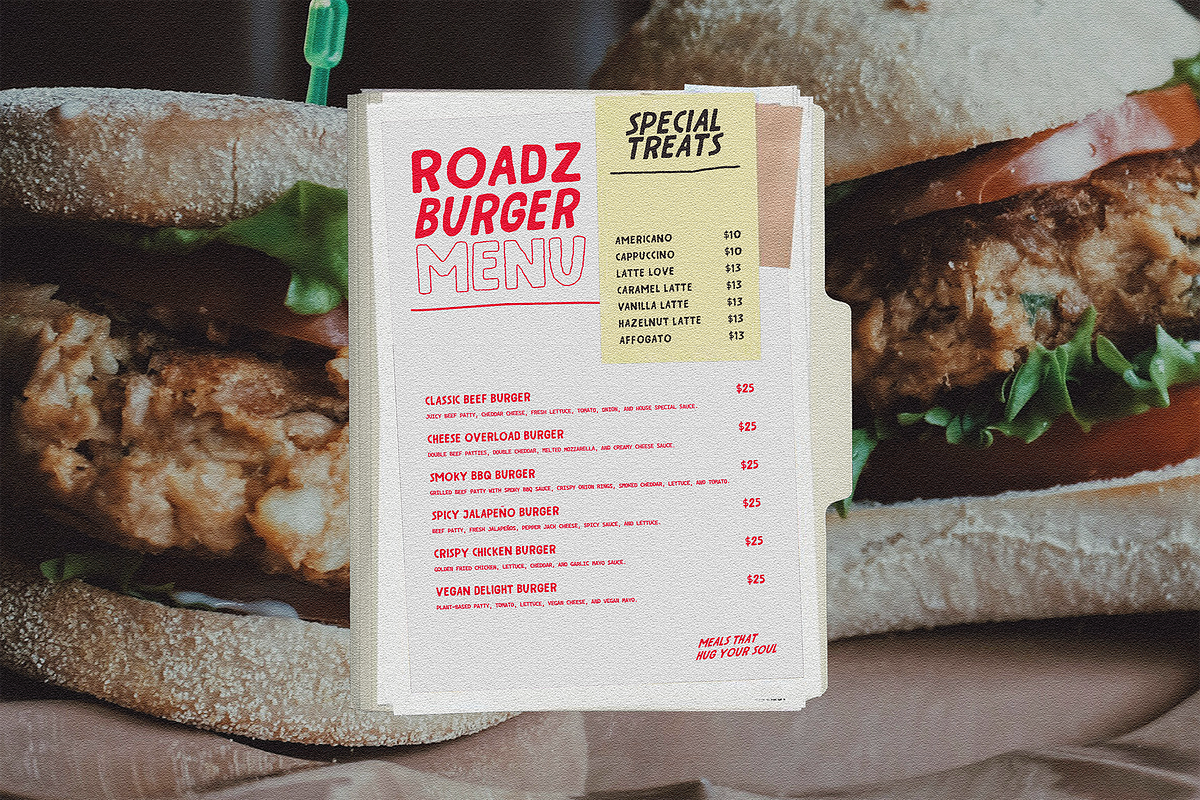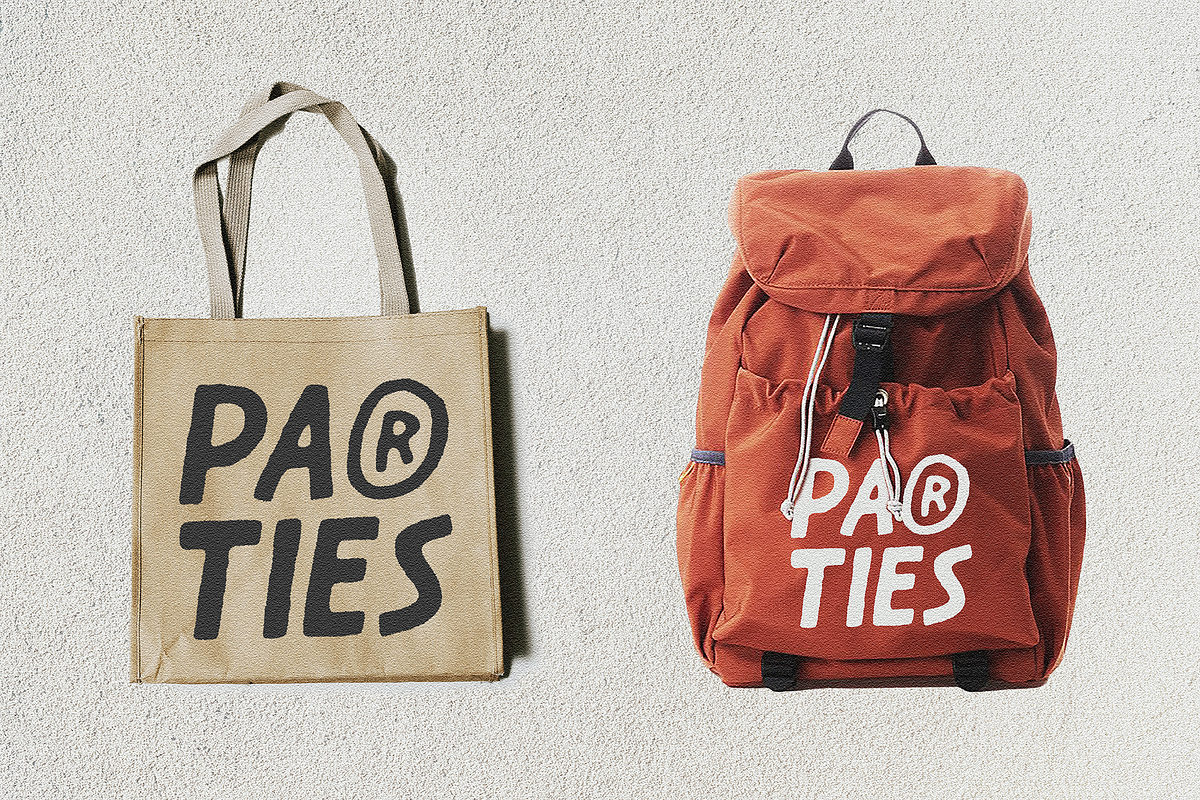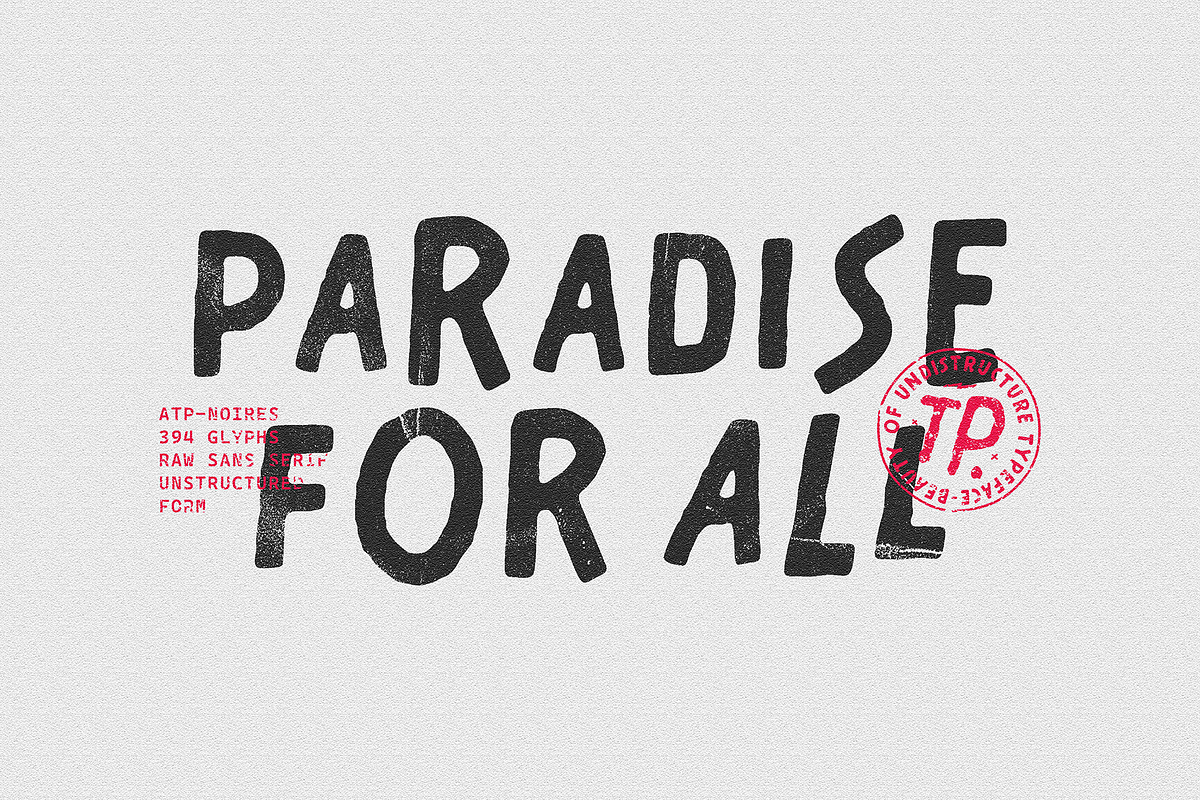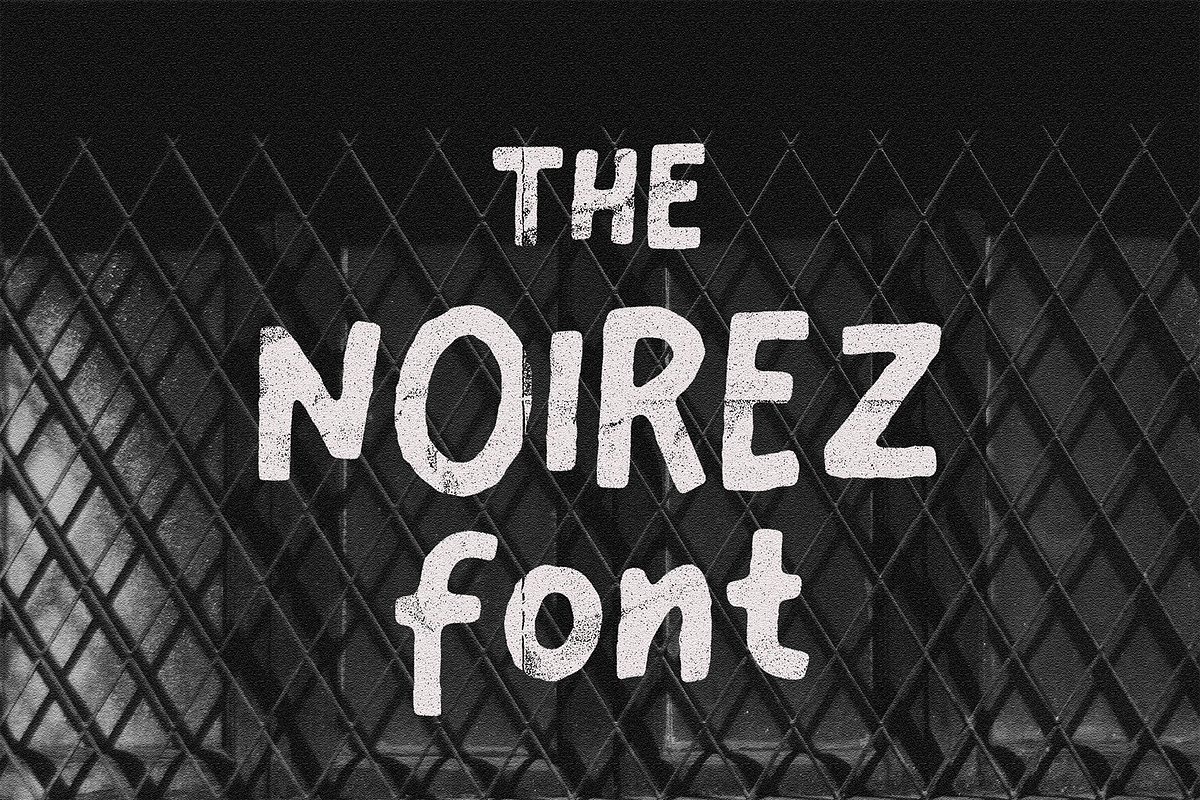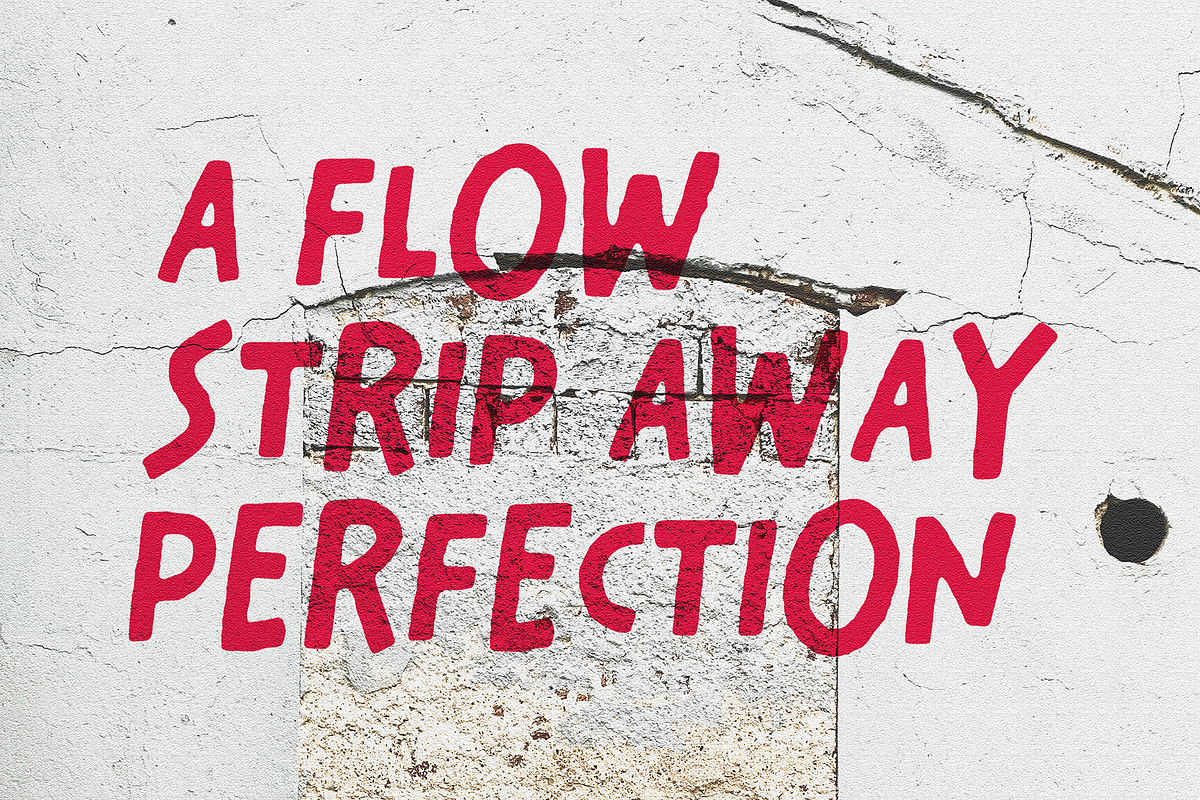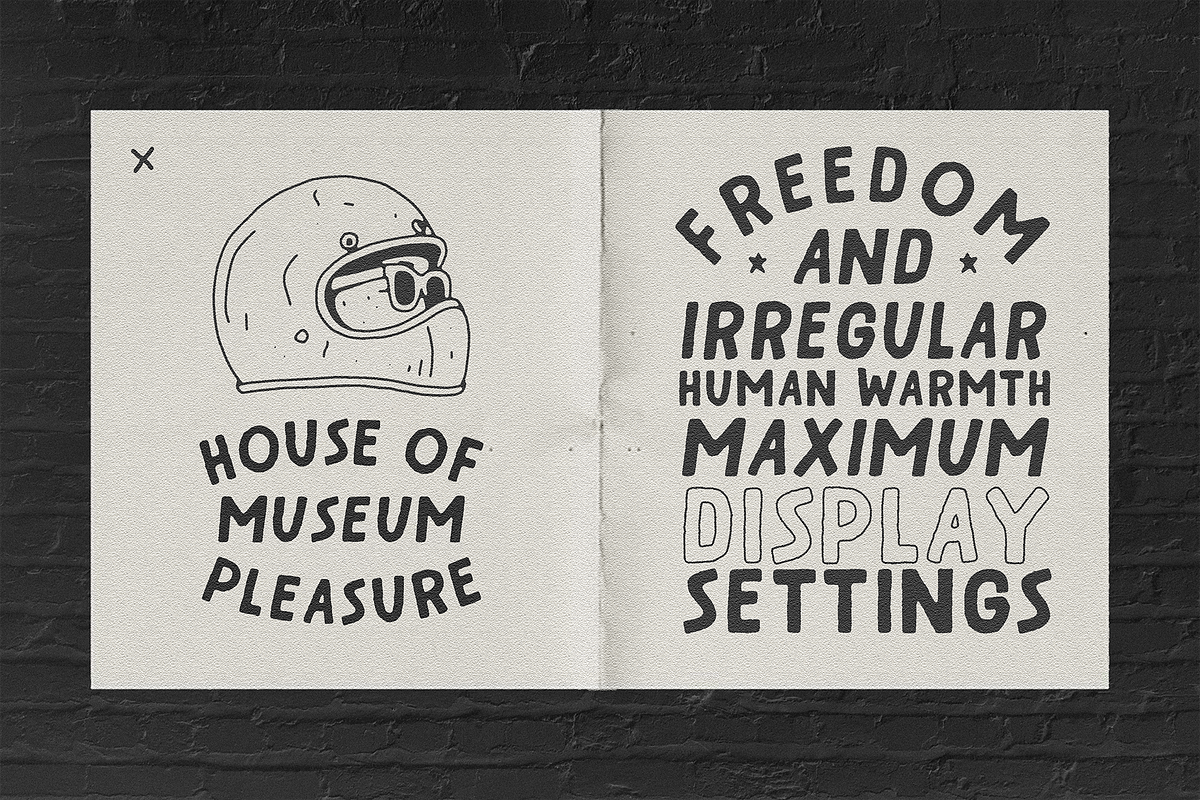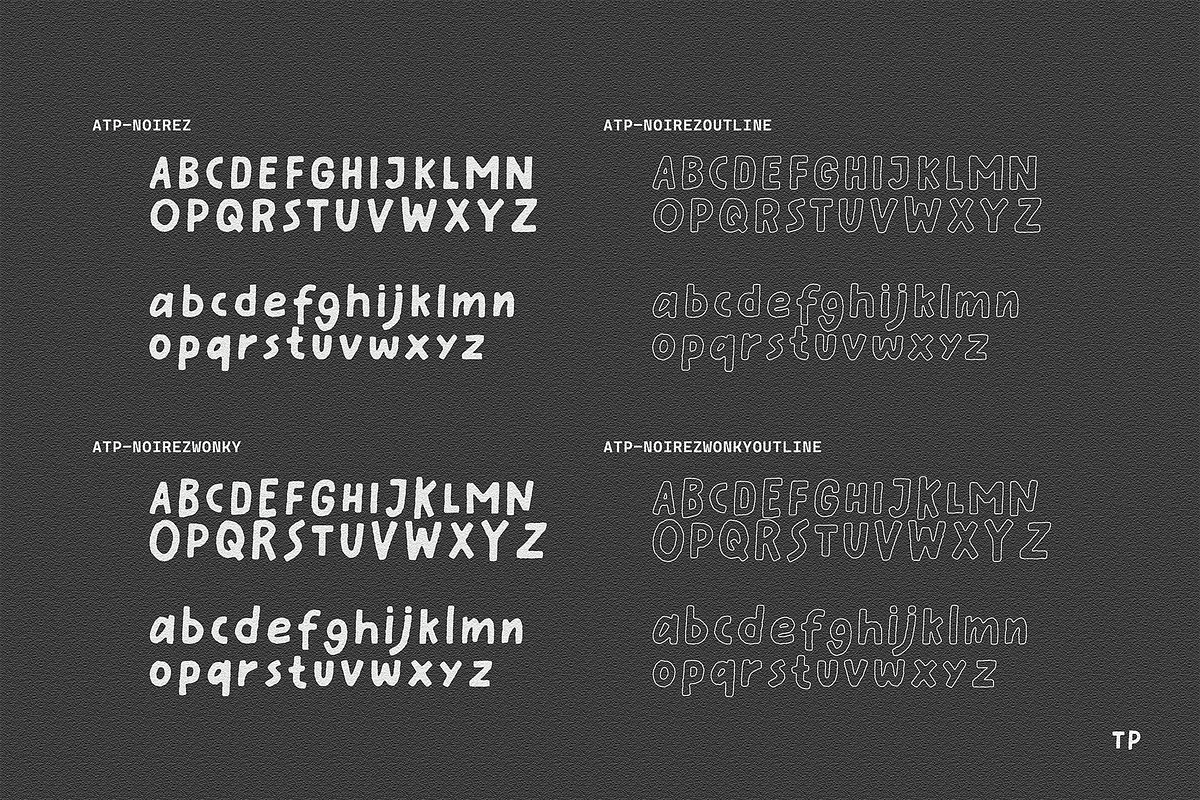
Noirez - Vintage Sans Serif Font
This bold sans serif font brings a laid-back but rebellious vibe. Its hand-drawn strokes feel rough around the edges, giving it that natural, unpolished charm. The letters don’t try to be perfect and that’s exactly what makes them stand out. Bold, confident, yet casual, this font is all about making a statement without losing its relaxed energy.
It’s the perfect fit for streetwear brands, posters, album covers, or any design that needs personality with a raw, carefree attitude. Think of it as bold type with a cool, effortless edge loud enough to grab attention, but chill enough to feel approachable.